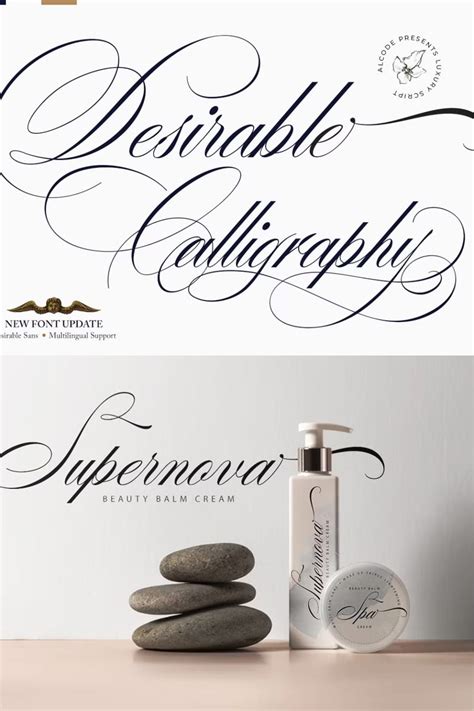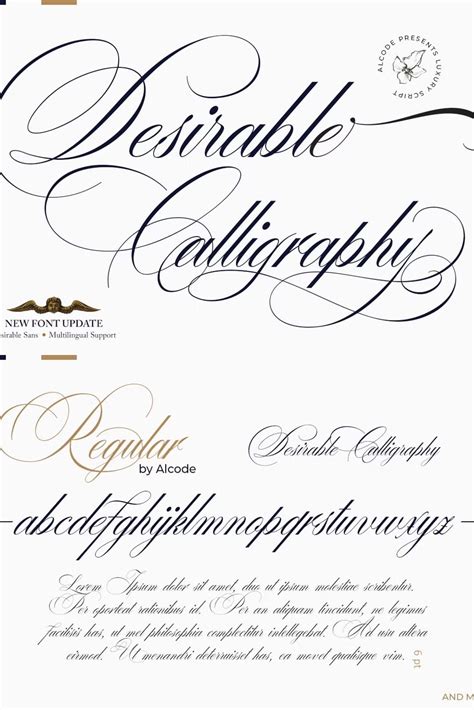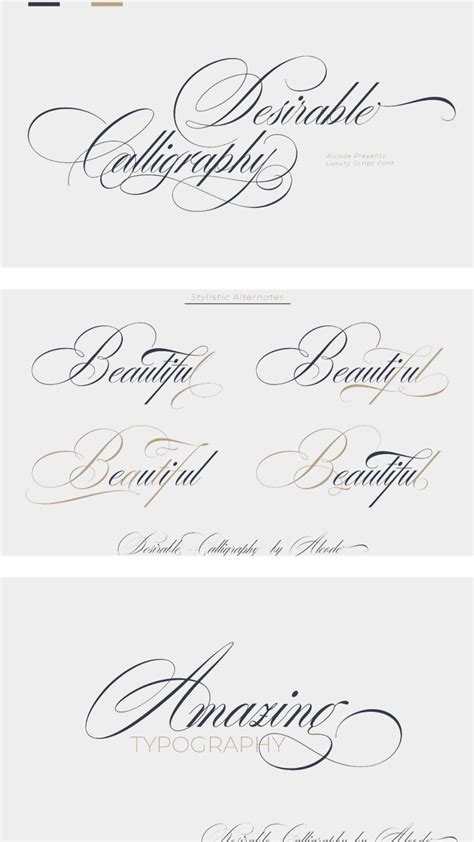
In the digital age, the art of calligraphy has evolved to include a wide range of desirable calligraphy fonts that can be used in various design projects. Whether you're a graphic designer, a typography enthusiast, or someone looking to add a touch of elegance to your personal projects, understanding the nuances of calligraphy fonts is essential. This post will delve into the world of calligraphy fonts, exploring their history, types, and practical applications.
Understanding Calligraphy Fonts
Calligraphy fonts are designed to mimic the fluid, hand-drawn strokes of traditional calligraphy. These fonts are characterized by their elegant, flowing lines and intricate details, making them a popular choice for invitations, logos, and other high-end design projects. The beauty of calligraphy fonts lies in their ability to convey a sense of sophistication and artistry, even in digital formats.
The History of Calligraphy Fonts
The art of calligraphy has a rich history that dates back to ancient civilizations. Originally, calligraphy was used for religious texts, royal decrees, and other important documents. Over time, it evolved into a form of artistic expression, with different cultures developing their unique styles. In the digital age, calligraphy fonts have become a staple in graphic design, allowing designers to incorporate the timeless elegance of handwritten text into their work.
Types of Desirable Calligraphy Fonts
There are several types of calligraphy fonts, each with its unique characteristics and uses. Some of the most popular types include:
- Brush Script Fonts: These fonts mimic the look of brush strokes, giving them a natural, hand-drawn appearance. They are often used for invitations, logos, and other projects that require a personal touch.
- Blackletter Fonts: Also known as Gothic fonts, these fonts feature thick, bold strokes and intricate details. They are often used for formal documents, certificates, and other projects that require a sense of tradition and authority.
- Copperplate Fonts: These fonts are characterized by their thin, delicate strokes and elegant curves. They are often used for formal invitations, certificates, and other projects that require a touch of elegance.
- Spencerian Fonts: These fonts feature flowing, cursive strokes and are often used for personal correspondence, invitations, and other projects that require a sense of warmth and intimacy.
Choosing the Right Desirable Calligraphy Font
Selecting the right calligraphy font for your project can be a challenging task, given the wide variety of options available. Here are some factors to consider when choosing a calligraphy font:
- Purpose: Consider the purpose of your project. Different calligraphy fonts are suited to different types of projects, so choose one that aligns with your goals.
- Legibility: Ensure that the font is legible, especially if it will be used in a project where readability is important, such as a website or a brochure.
- Style: Choose a font that complements the overall style of your project. For example, a brush script font might be more suitable for a casual, personal project, while a blackletter font might be better for a formal, traditional project.
- Versatility: Consider how versatile the font is. Some calligraphy fonts can be used in a variety of projects, while others are more specialized.
Here is a table that summarizes the key characteristics of different types of calligraphy fonts:
| Font Type | Characteristics | Common Uses |
| Brush Script | Natural, hand-drawn appearance | Invitations, logos, personal projects |
| Blackletter | Thick, bold strokes, intricate details | Formal documents, certificates, traditional projects |
| Copperplate | Thin, delicate strokes, elegant curves | Formal invitations, certificates, elegant projects |
| Spencerian | Flowing, cursive strokes | Personal correspondence, invitations, intimate projects |
Practical Applications of Desirable Calligraphy Fonts
Calligraphy fonts can be used in a wide range of projects, from personal correspondence to professional design work. Here are some practical applications of calligraphy fonts:
- Invitations: Calligraphy fonts are a popular choice for wedding invitations, birthday invitations, and other special occasion invitations. They add a touch of elegance and personalization to the event.
- Logos: Calligraphy fonts can be used to create unique and memorable logos for businesses, brands, and organizations. They convey a sense of sophistication and artistry, making them ideal for high-end products and services.
- Certificates: Calligraphy fonts are often used for formal certificates, diplomas, and awards. They add a sense of tradition and authority to the document, making it more prestigious.
- Branding: Calligraphy fonts can be used in branding materials, such as business cards, letterheads, and packaging. They help to create a cohesive and elegant brand identity.